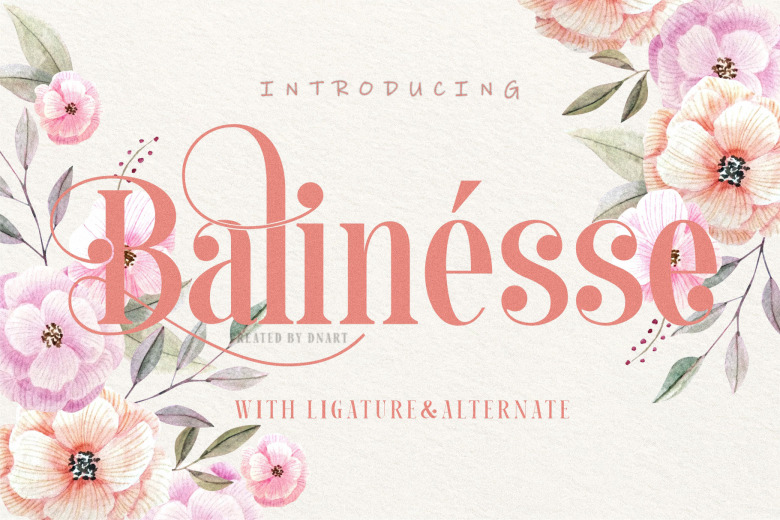
Balinesse Font
Balinesse Serif Font is an elegant and bold display font. Fall in love with its incredibly versatile style and use it to create gorgeous wedding invitations, beautiful stationary art, eye-catching social media posts, and much more!
This font is an elegant ligature serif typeface. A contrast display typeface with extra ligature and alternate glyph. Multilingual support, with uppercase, lowercase, numbers and punctuation. Let’s ignite your next project with balinesse!
Balinesse Serif Font